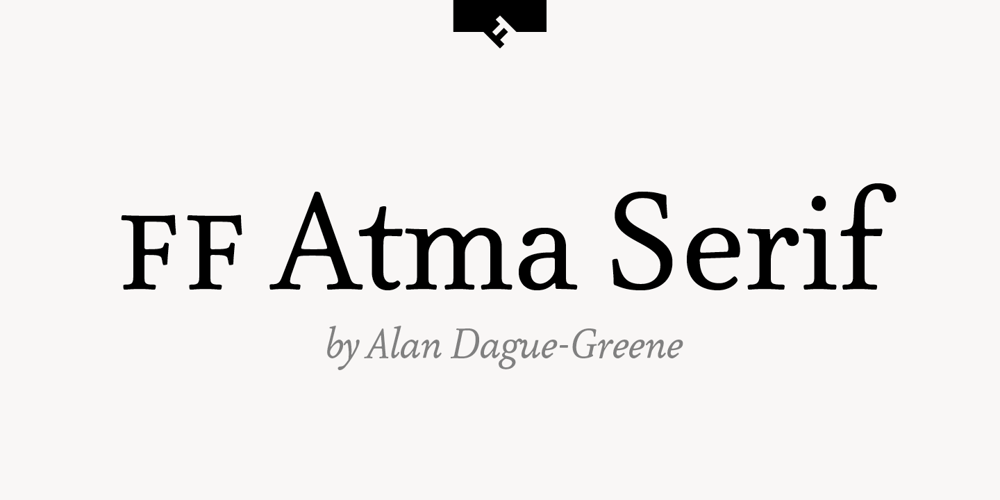
FF Atma Serif Font Family was designed by Alan Dague-Greene and published by FontFont. FF Atma Serif contains 8 styles and family package options. American type designer Alan Dague-Greene created this serif FontFont in 2001. The family has 8 weights, ranging from Book to Black (including italics) and is ideally suited for book text and editorial and publishing. FF Atma Serif provides advanced typographical support with features such as ligatures, small capitals, petite capitals, alternate characters, case-sensitive forms, and fractions. It comes with a complete range of figure set options – oldstyle and lining figures, each in tabular and proportional widths.